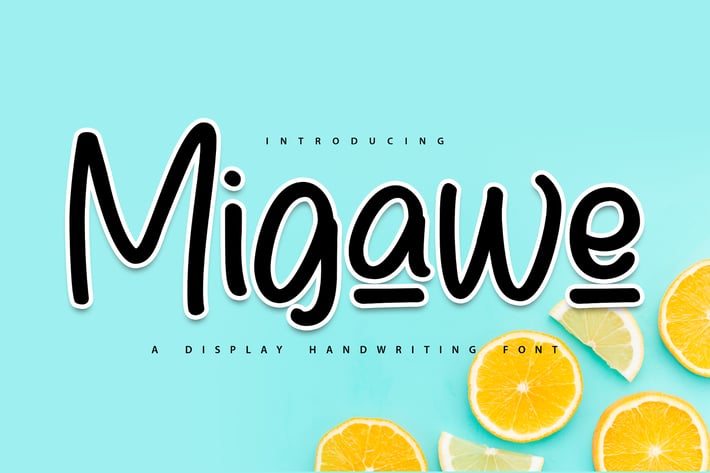
Migawe | Display Handwriting Font
Migawe | Display Handwriting Font with a calligraphy style, So beautiful on invitation like greeting cards, branding materials, business cards, quotes, posters, and more!